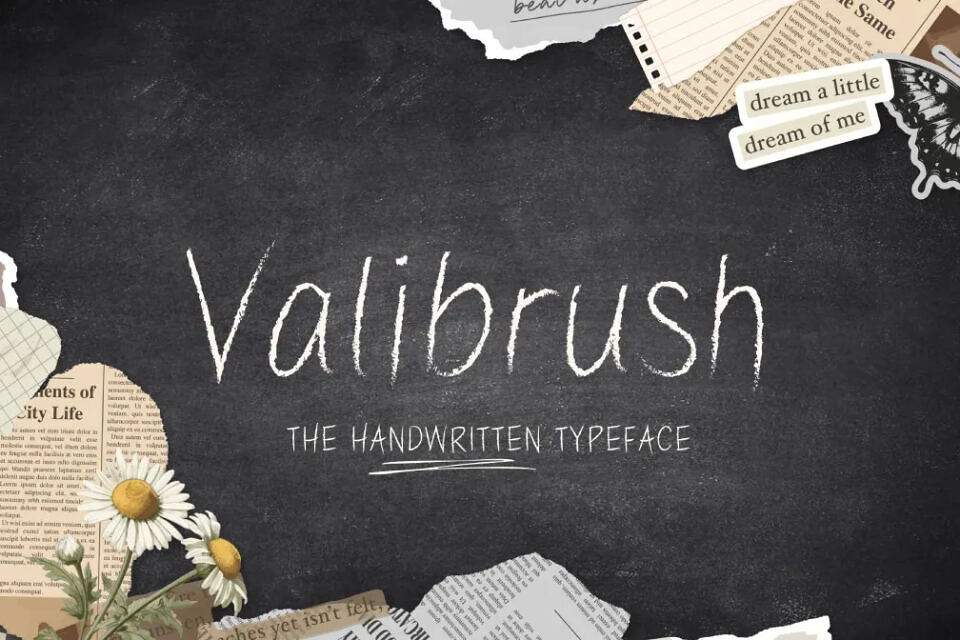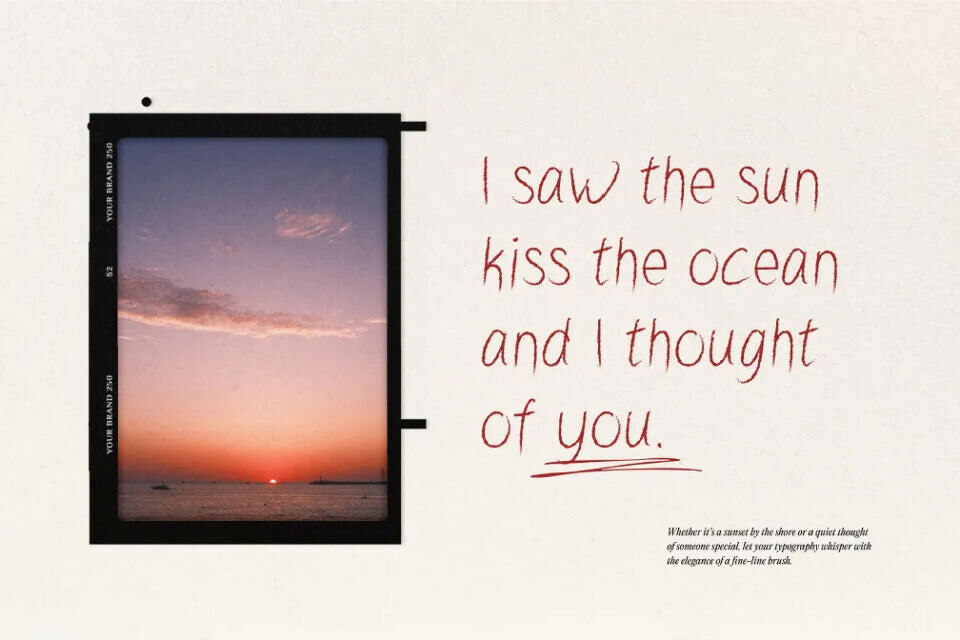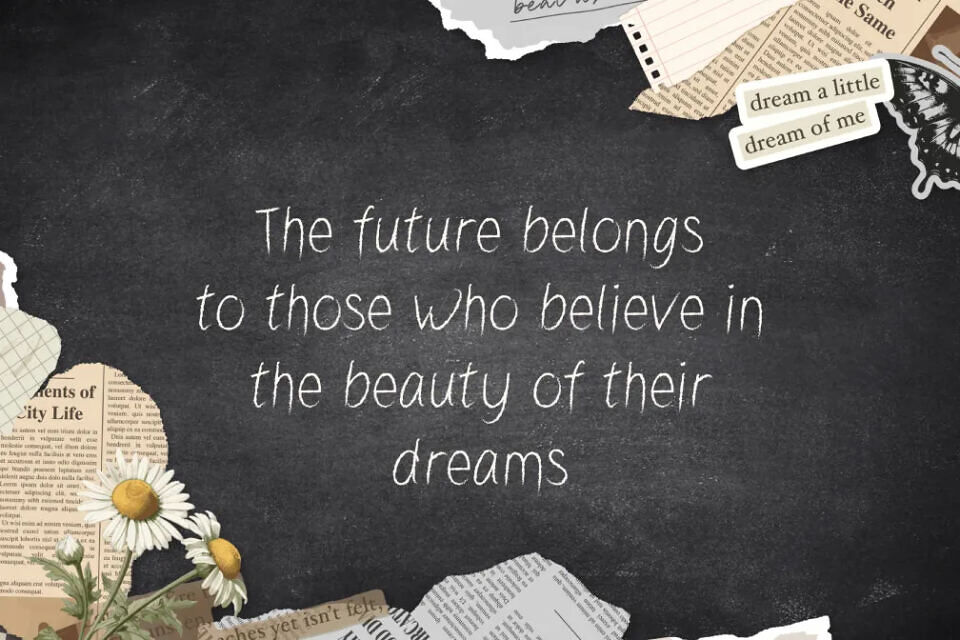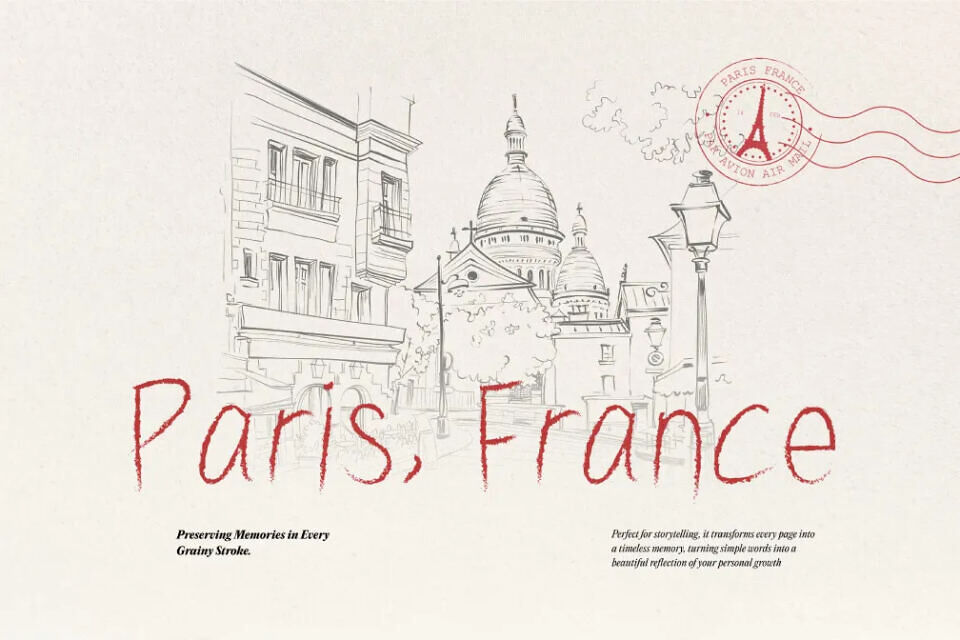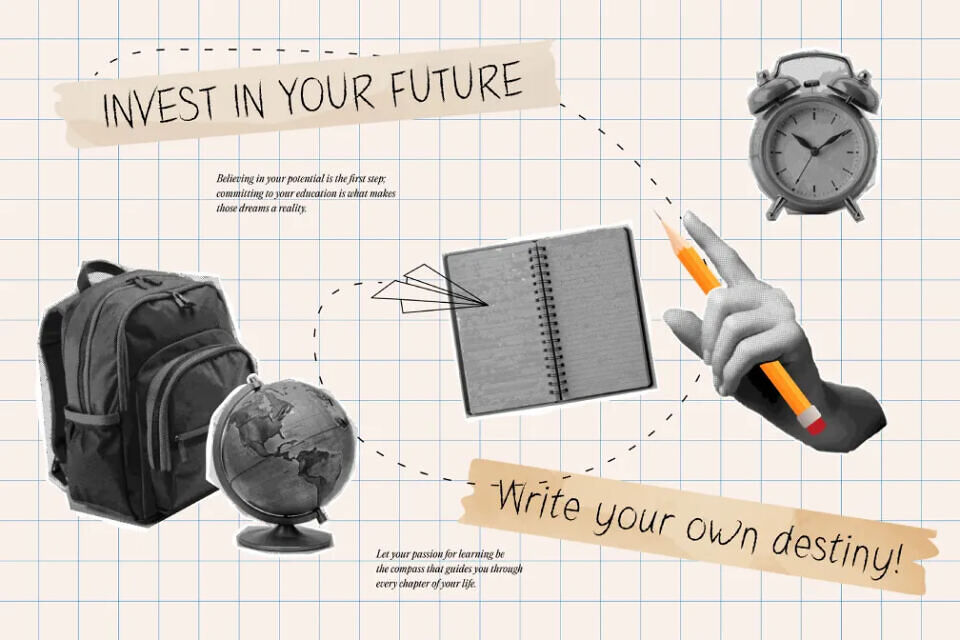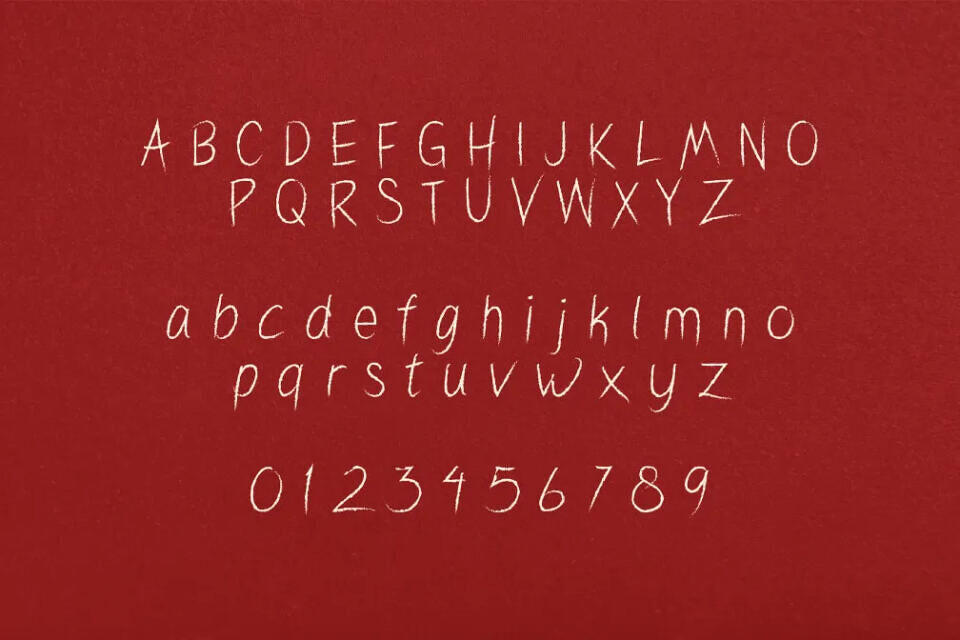
The Valibrush “Fun Kids Chalk” font mimics handwriting on a whiteboard with a subtle, realistic style. Its versatility allows you to create varying tones, from bold to romantic, by combining letters.
This font is ideal for diverse design projects, including weddings, social media, ads, packaging, and photography, making it a great choice for a wide range of creative needs.